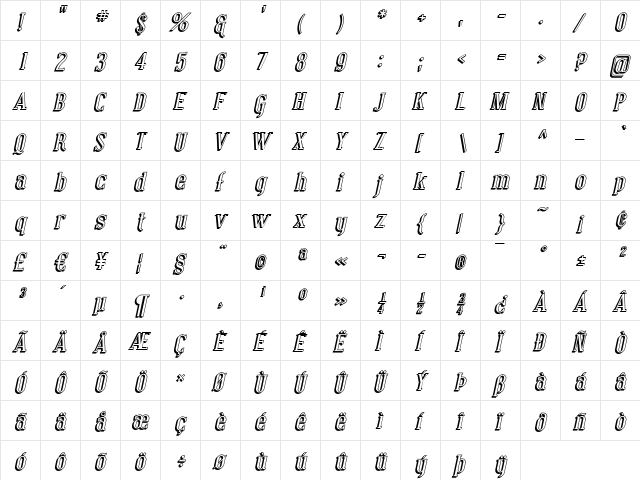
Covington Shadow Italic
| Designer | Derek Vogelpohl |
Design Context for Covington Shadow Typeface
Covington Shadow brings ornamental detail and strong personality to headlines and identities, where visual impact matters more than quiet functionality. The slanted form adds forward momentum and visual energy.
Font Pairing: Pair with a clean neutral sans-serif for body copy to let Covington Shadow's character lead without overwhelming the composition.
Pro Tip: Treat Covington Shadow as the centrepiece of your typographic hierarchy. One strong heading set in a decorative face can carry an entire layout.